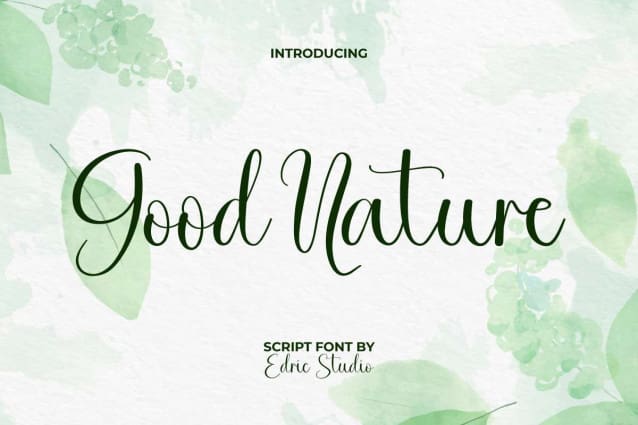
Good Nature Font
Good Nature Font is a beautiful script font that has a modern and fresh feel. This will create a really natural touch to your design. Add this elegant typography to any of your creative ideas and watch how it works well for any industry, such as architect, beauty clinic, botanist, boutique, cosmetic, fashion, florist, furniture, homeware, interior designers, printing, publishing, restaurant, skincare, spa salon, wedding, writer, and much more.
Good Nature Font comes with a full set of Uppercase and Lowercase letters, Number, Punctuation, Symbol, and Ligature. Put it on everything from cover designs, fabric screen printing, greeting cards, headers, invitations, logos, quotes, signage, stickers, titles, websites, and more! It will give the impression of authentic handmade writing for a more branded look.